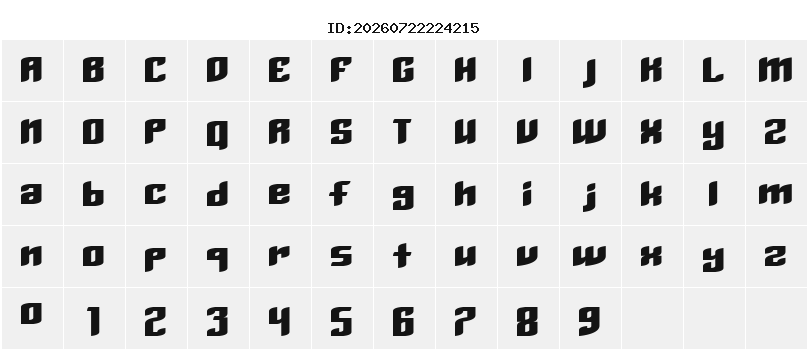
• Font Name: Moonpebble KG
• Full Font Name: Moonpebble KG
About Moonpebble KG.ttf
Moonpebble KG.ttf is a modern, elegant sans-serif font designed for ultimate readability and visual harmony. Perfect for branding, headlines, web design, and print materials.